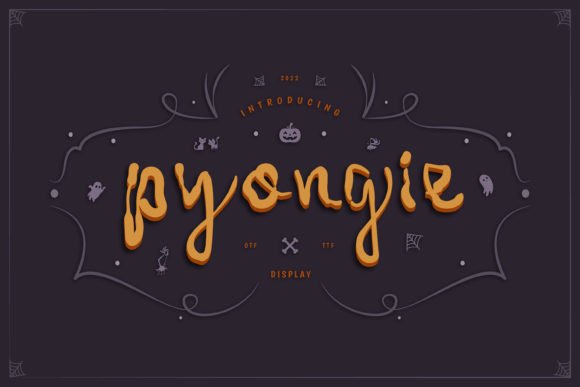
Prepare to unleash your inner artist and let your imagination run wild with Pyongie, the dazzling display font that will captivate your every creation. Crafted by the talented inferno.type3, Pyongie exudes playfulness and intrigue, making it the perfect companion for your haunting Halloween projects.
Let Pyongie's captivating curves and enchanting strokes add a touch of enchantment to your spooky designs. Whether you're carving pumpkins, crafting invitations, or designing social media posts, Pyongie's playful spirit is sure to cast a spell on your audience.
Dive into the realm of imagination and let Pyongie's magical essence ignite your creativity. You'll be amazed by how effortlessly this font transforms your projects into captivating masterpieces.
Embrace the playful, enchanting, and effortlessly spooky essence of Pyongie today. Let your imagination soar and watch as your Halloween designs come to life with a unique and haunting charm.